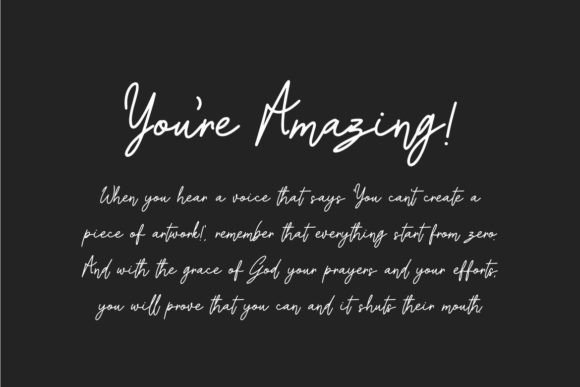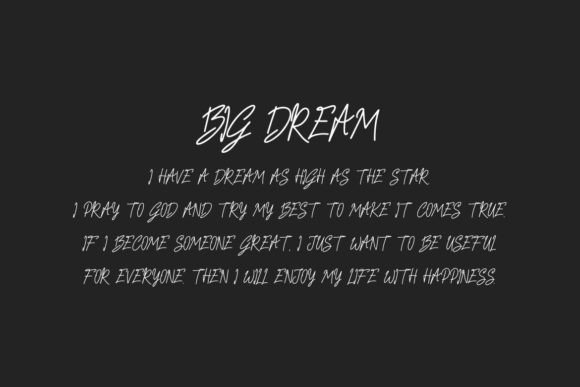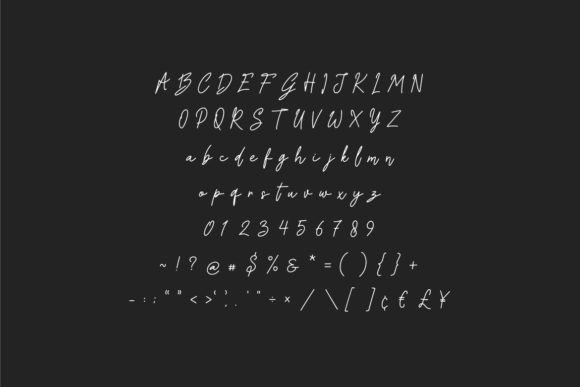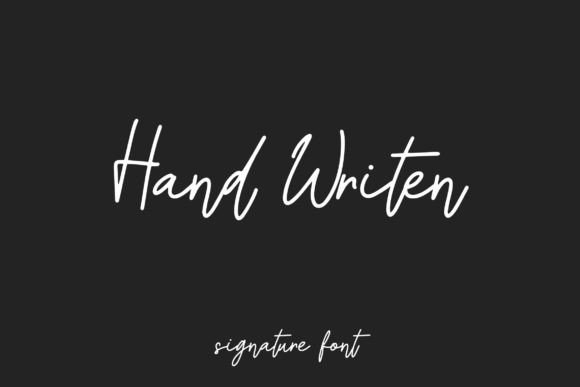
Introducing Hand Written Font: Elevate Your Designs with a Personal Touch
In the world of typography, fonts play a crucial role in conveying the tone and personality of a design. For crafters, designers, and artists, selecting the right font can make all the difference between a good design and a great one. If you’re looking for a font that adds a touch of elegance, sophistication, and whimsy to your creations, look no further than Hand Written Font. This modern and stylish signature font is specifically designed to bring a beautiful and refreshing look to your designs.
The Story Behind Hand Written Font
Hand Written Font is the brainchild of talented typographers who sought to create a font that captures the essence of handwriting, with all its imperfections and charm. Unlike traditional fonts that can appear stiff and formal, Hand Written Font is designed to mimic the fluidity and expressiveness of handwritten text. The result is a font that exudes warmth, personality, and a sense of human touch.
Key Features of Hand Written Font
- Unique and Distinctive: Hand Written Font boasts a distinctive style that sets it apart from more traditional fonts. Its unique letterforms and flowing connections make it perfect for designs that require a personal touch.
- Modern and Stylish: This font is not just beautiful; it’s also modern and stylish. Its clean lines and elegant curves make it suitable for a wide range of design applications, from branding and advertising to packaging and digital media.
- Highly Versatile: Hand Written Font is incredibly versatile, making it suitable for various design projects. Whether you’re working on a logo, brochure, website, or social media graphics, this font can help you achieve your desired look.
- Easy to Read: Despite its artistic nature, Hand Written Font is remarkably legible, ensuring that your message is conveyed clearly and effectively.
Use Cases for Hand Written Font
Hand Written Font’s versatility makes it an excellent choice for a variety of design projects. Here are some use cases where this font truly shines:
- Logos and Branding: Create a memorable brand identity with a logo that features Hand Written Font. Its unique style will help your brand stand out in a crowded market.
- Wedding and Event Invitations: Add a touch of elegance and romance to your wedding or event invitations with this beautiful font.
- Packaging Design: Make your product packaging more appealing with Hand Written Font. It’s perfect for labels, tags, and other packaging materials.
- Digital Media: Use Hand Written Font in your digital media, such as social media graphics, blog posts, and email newsletters, to add a personal and creative touch.
Tips for Using Hand Written Font Effectively
To get the most out of Hand Written Font, consider the following tips:
- Pair it with Other Fonts: Combine Hand Written Font with other fonts to create visual interest and hierarchy in your design.
- Experiment with Colors: Don’t be afraid to try different colors and textures to enhance the beauty of Hand Written Font.
- Keep it Simple: While Hand Written Font is beautiful, it’s essential to balance it with simple and clean design elements to avoid visual overload.
Hand Written Font is a modern and stylish signature font that can elevate your designs with its unique and refreshing look. Its versatility, legibility, and charm make it an excellent choice for designers, crafters, and artists looking to add a personal touch to their creations. Whether you’re working on a logo, packaging, digital media, or event invitations, Hand Written Font is sure to impress. So why wait? Give Hand Written Font a try today and discover a world of creative possibilities!